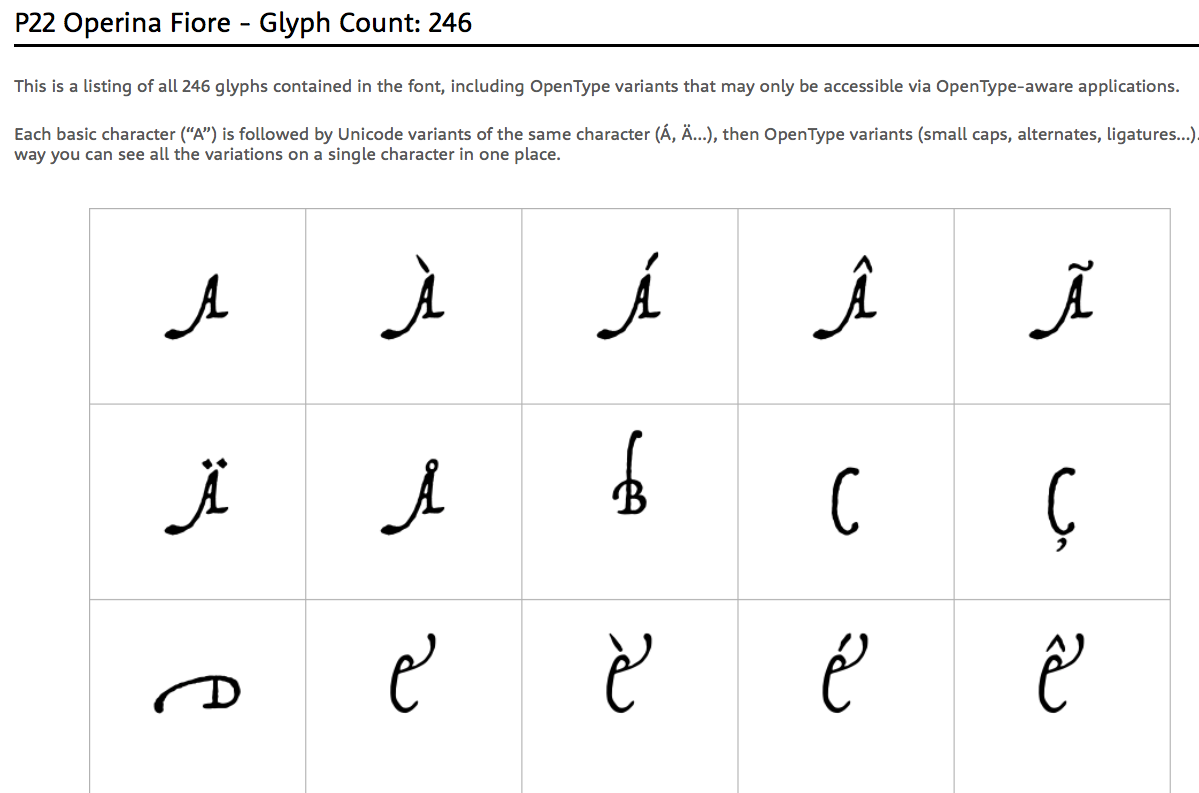
I was hoping that I could get help with identifying these fonts in The Art of How to Train Your Dragon 3.
P22 Operino Romano
Same: P22 Operino Romano
I’m just curious as to why the style is on the ‘A’ in the first image, if it’s the same font. The normal version (shown in the second image) doesn’t seem to have that.
There are three fonts in the Operino family. The basic font is Operino Romano, and Operino Fiore is the swash alternate. Here’s a partial view of the glyph table for Fiore.